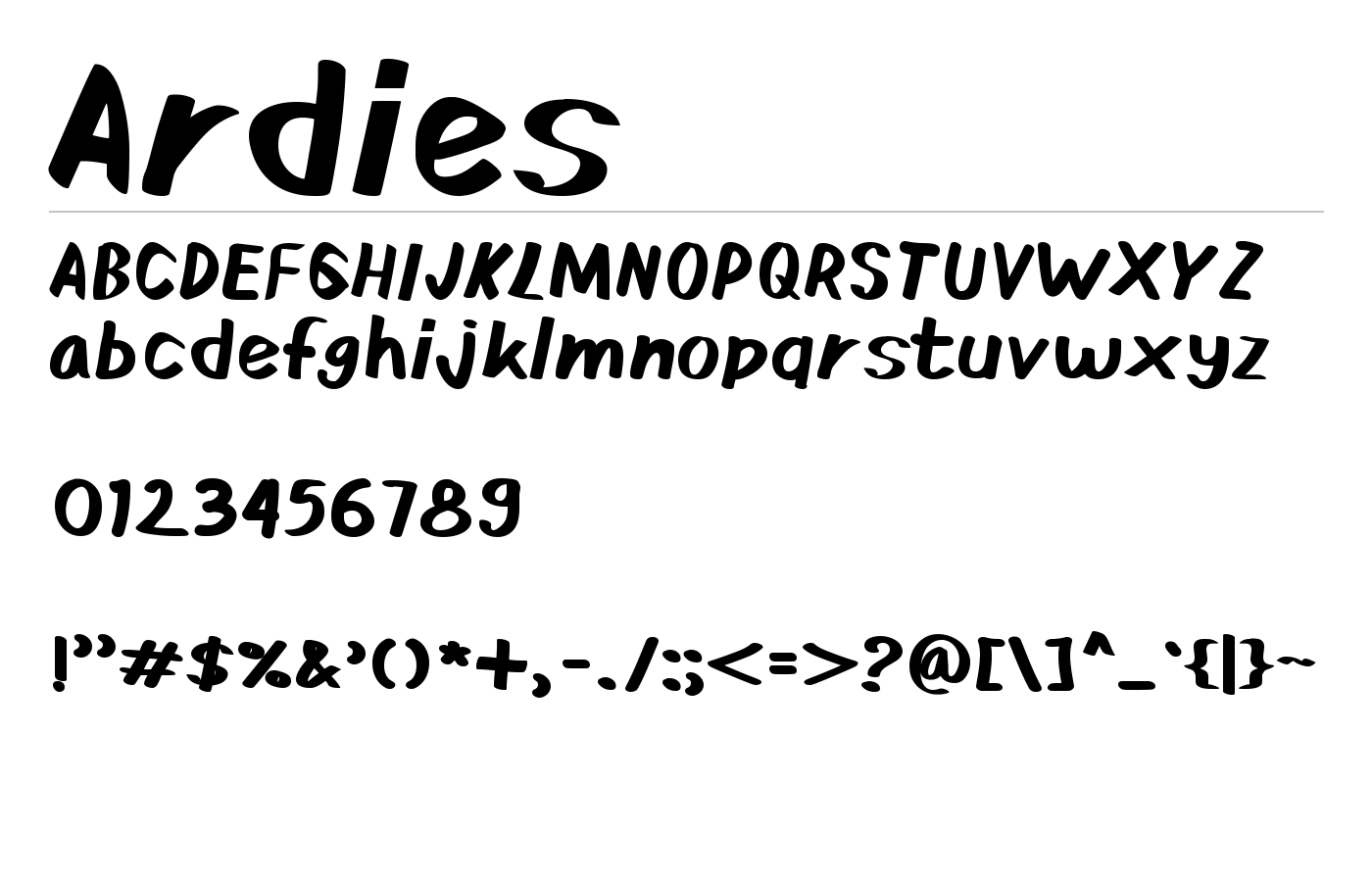
Ardies is a playful and lively sans serif font with a hand-drawn feel, featuring slightly irregular shapes and moderate stroke contrast that add a casual, friendly personality to its design. Its wide letterforms and soft curves create an inviting and approachable look, making it ideal for informal branding, children's materials, and creative projects that want to convey warmth and creativity. This font works well in headlines and display text where a fun, approachable vibe is desired.
Ardies Font